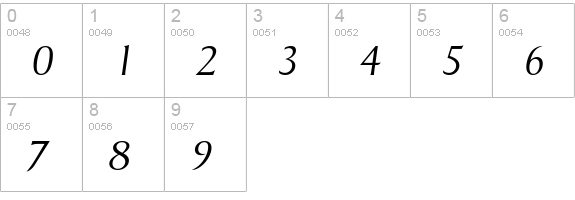
SigvarSerial-Xlight-Italic is a distinctive, italic variant in the SigvarSerial typeface family \xE2\x80\x94 well suited to design and typography projects.
SigvarSerial-Xlight-Italic is a beautifully crafted font that exudes elegance and sophistication. Its delicate and slender appearance gives a sense of grace and refinement to any text it adorns. The italic style adds a touch of flair and modernity, making it perfect for projects that require a contemporary and polished look. This font is not only visually appealing but also versatile, suitable for a wide range of design applications including branding, editorial design, and advertising. Its clean lines and smooth curves make it easy to read, ensuring that your message is conveyed clearly and effectively. Best of all, SigvarSerial-Xlight-Italic is available for free download at FontsMarket.com. Now you can elevate your projects with this exquisite font without any cost, making it a valuable addition to your font collection. Don't miss out on the opportunity to enhance your designs with this stunning typeface.